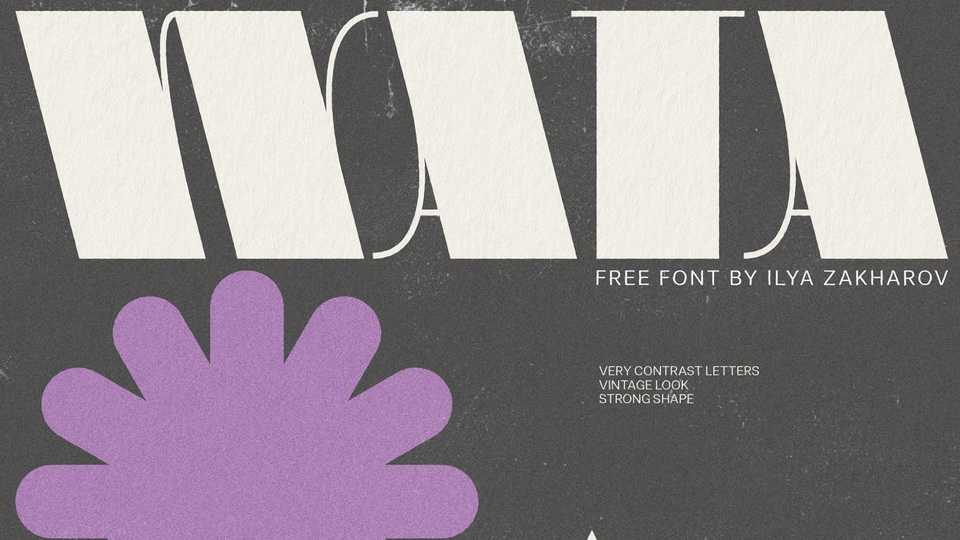
Download Wata font, a very contrast display typeface with retro look and strong shapes. Wata is ideal for posters, social media, headlines, titling, large-format print – and anywhere else to be noticed.
Designer: Ilya Zakharov